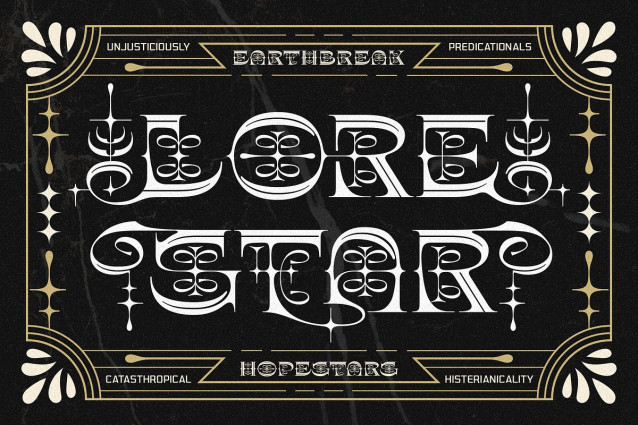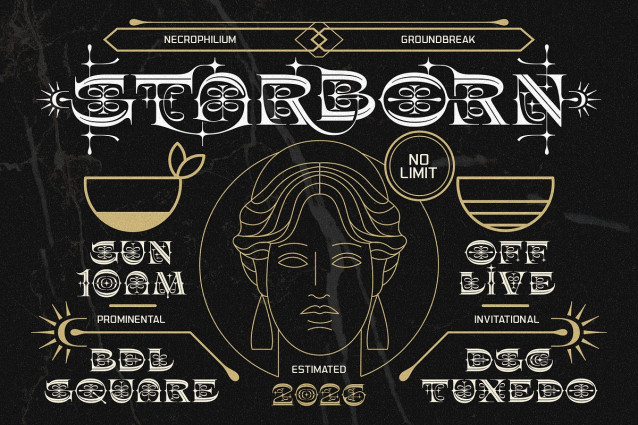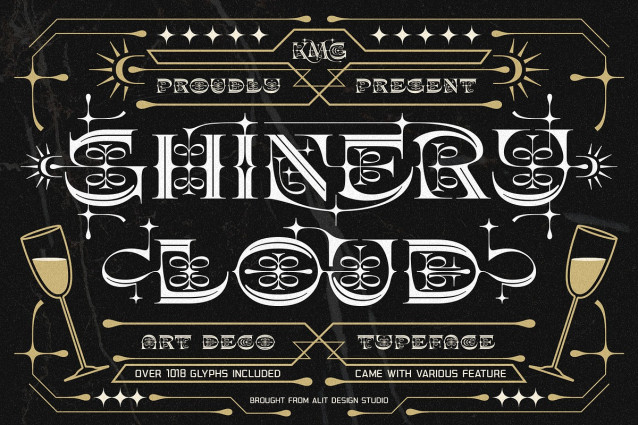
Shinery Loud Font
Shinery Loud Font a premium Art Deco display typeface masterfully crafted by Alit Design Studio. Inspired by the architectural grandeur, geometric precision, and opulent lifestyle of the roaring 1920s, Shinery Loud marries vintage aesthetic charm with modern typographic needs. As the name suggests, this font doesn’t just whisper—it makes a loud, unforgettable statement.